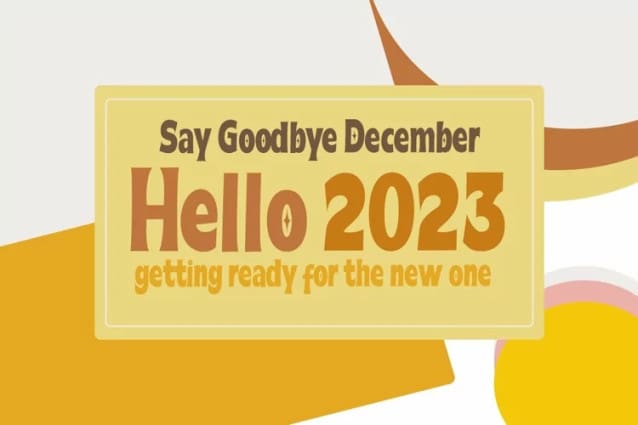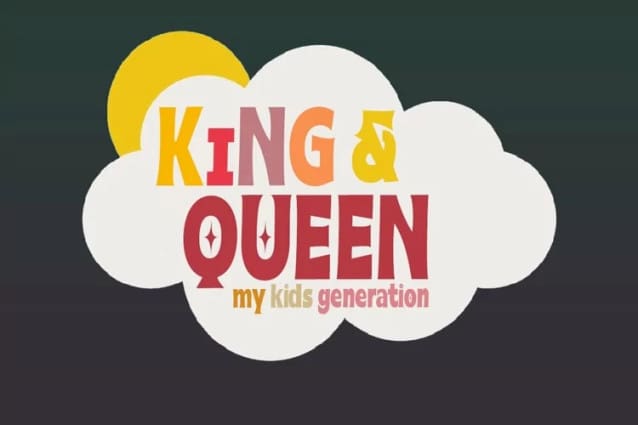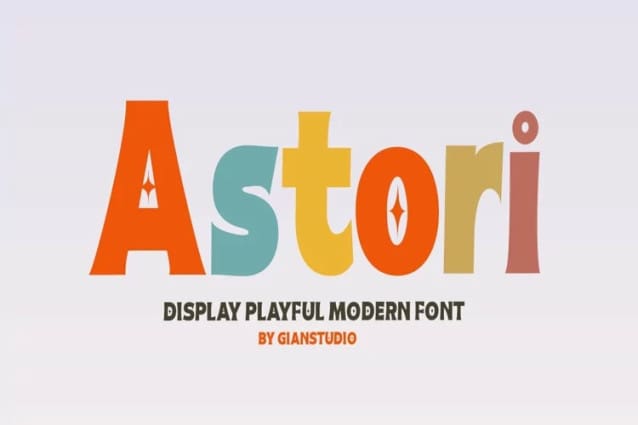
Astori Display Font
Astori Display Font is an elegant Display typeface with subtle details. This neat font can add modern and fashionable brand appeal. This versatile display typeface has enough character for logos and branding, as well as headlines, apparel, bridal and more. Keep it classic, or decorate it with ornate alternatives to uppercase and lowercase glyphs!